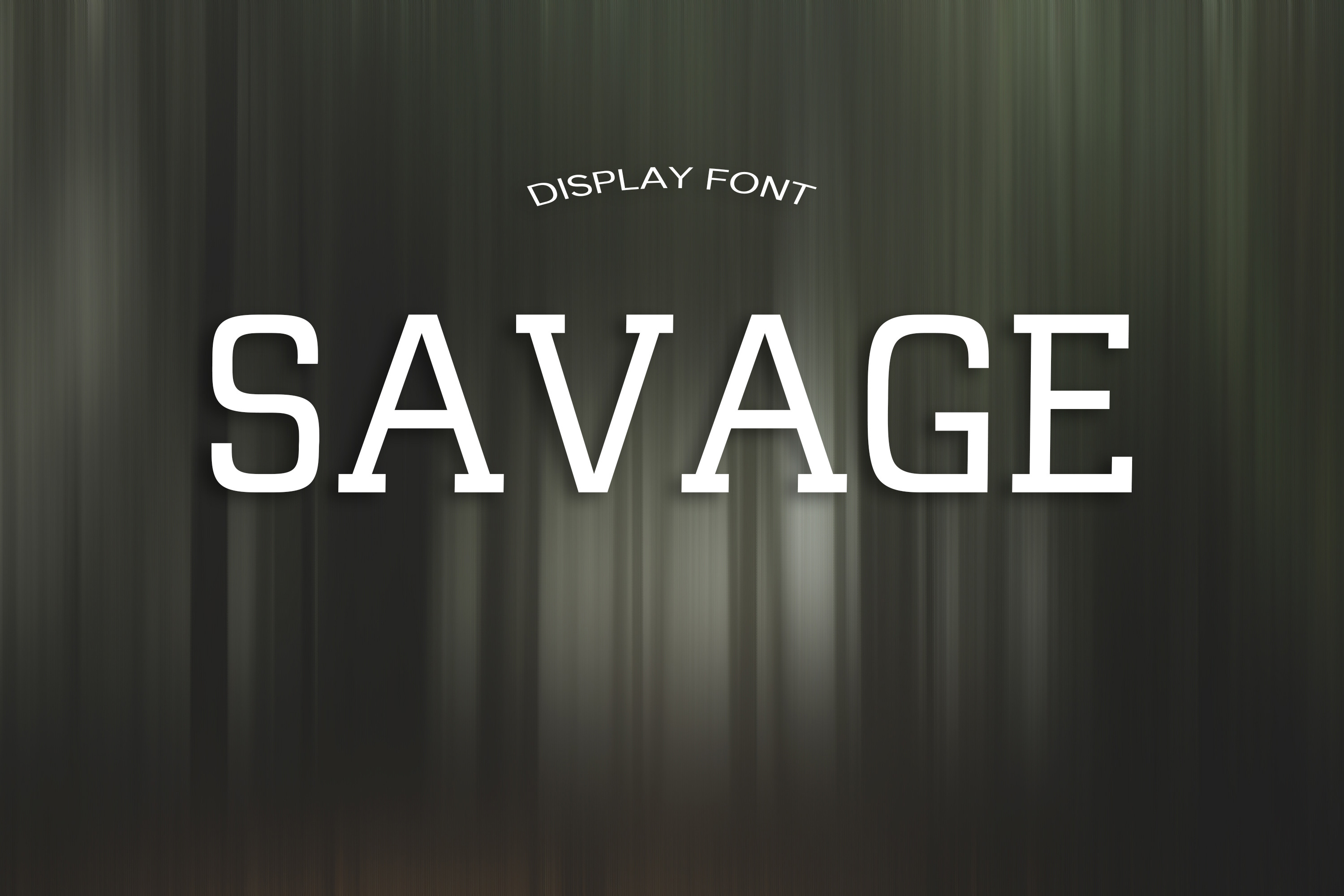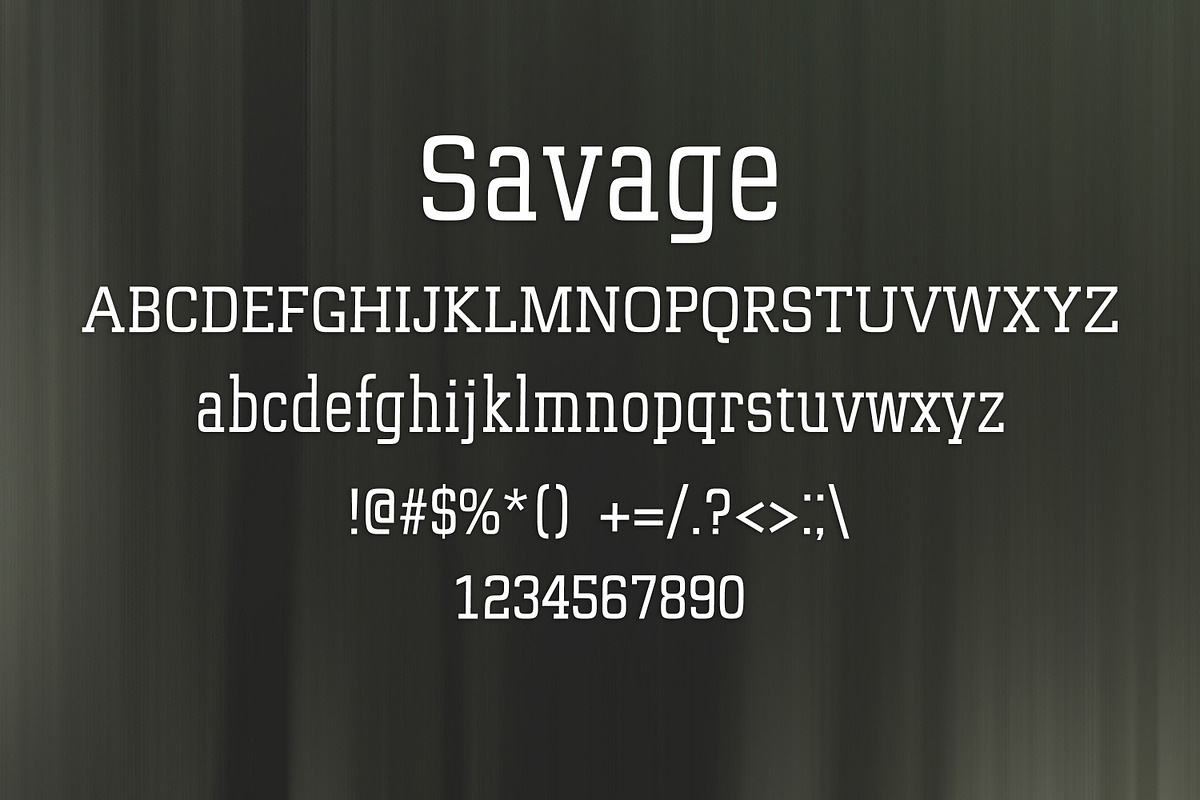
SAVAGE font
It's a modern, all caps display font. Specifically developed for contemporary design styles and applications. It's perfect for you to give your design an elegant modern style. The font came with web font licenses & unlimited page views!
Although it can be used at smaller sizes, it has been designed primarily for use at larger scales. Perfect for branding projects, striking posters and as a unique display font for web or app development.